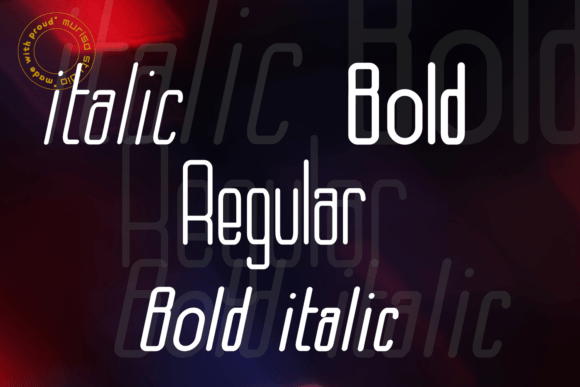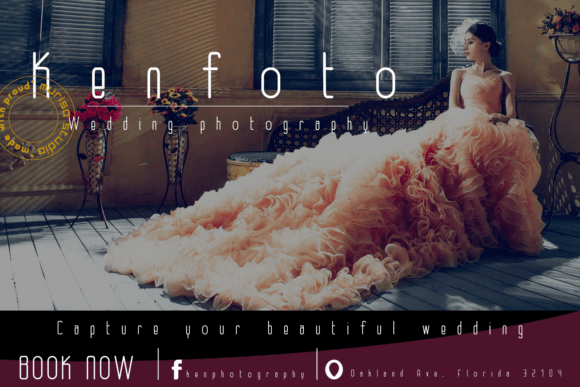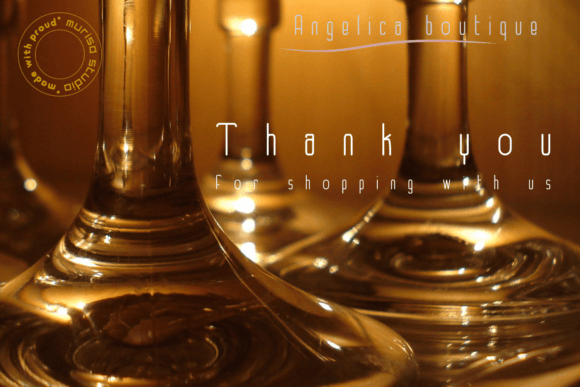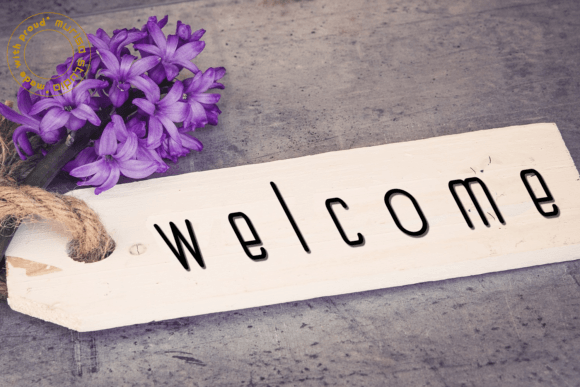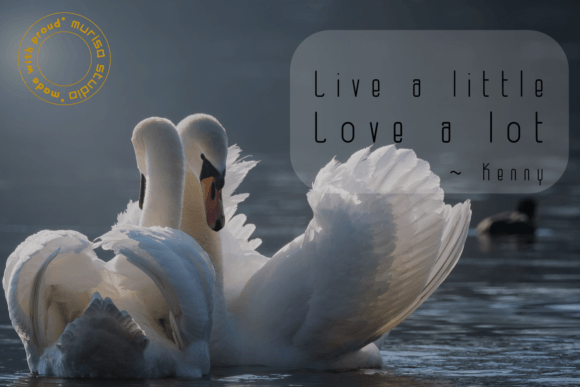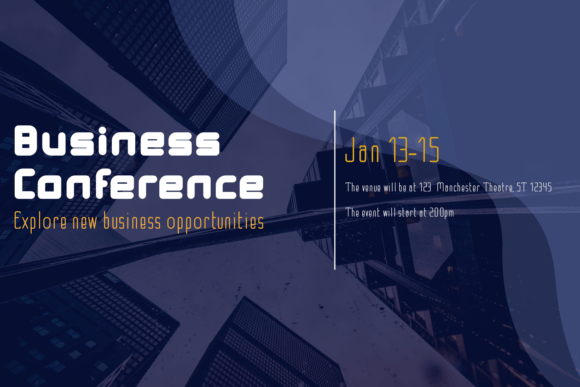
Introduction to Mondriana Font
Mondriana is a cool and modern looking sans serif font.
It will elevate a wide range of crafting ideas, from cards, to branding, labels and much more Add it confidently to your favorite creations and let yourself be amazed by the outcome generated.